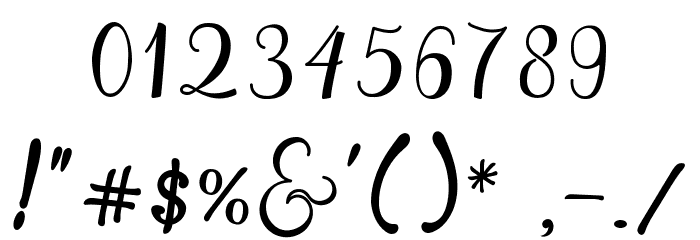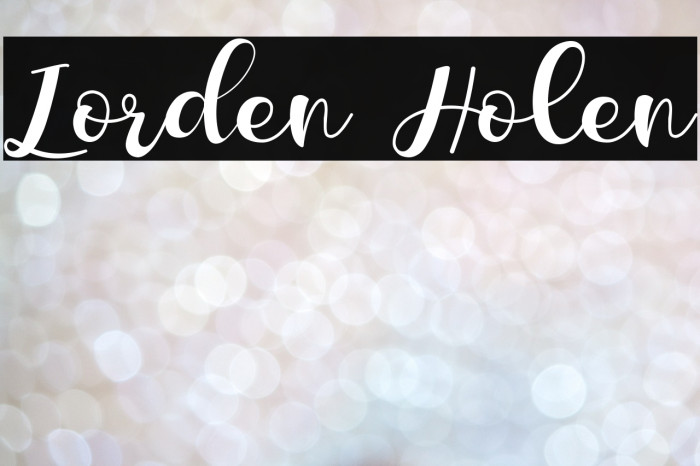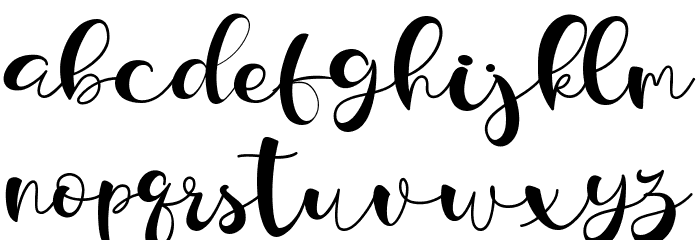
Lorden Holen Font
Lorden Holen Description
This font exudes a playful and elegant script style, characterized by its flowing, cursive letters that mimic a handwritten aesthetic. The uppercase letters are bold and slightly slanted, giving a sense of movement and fluidity. The lowercase letters maintain a consistent style, with loops and curves that enhance its decorative appeal. The numbers are clear and maintain the same playful style, making them easily readable. Special characters are well-integrated, matching the overall aesthetic with their curvy and artistic design. This font is perfect for projects that require a personal touch, such as invitations, greeting cards, or branding materials.
A playful and elegant script font with a handwritten aesthetic from Uncategorized fonts.